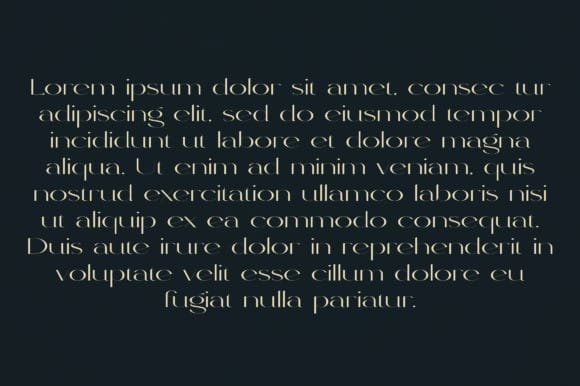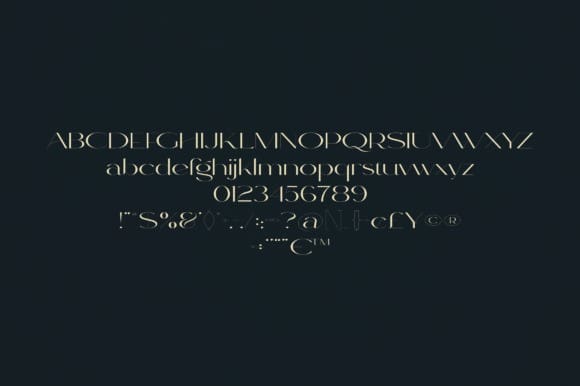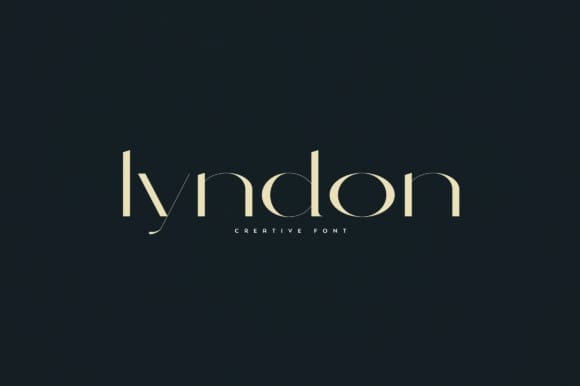
Lyndon Font
Lyndon Font, is an elegant and versatile font that will make your typography truly unique! It will enchant every logo, branding, headline, or plain text!